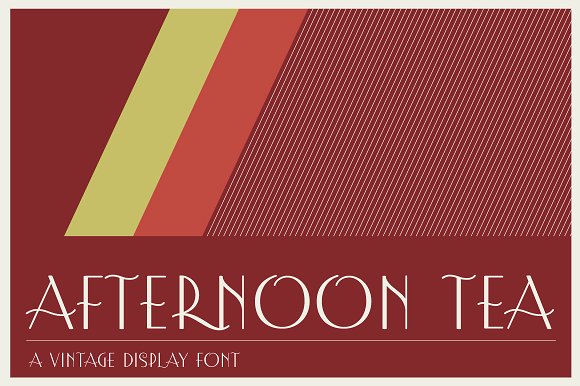
The Afternoon Tea Font: A Timeless Classic for Elegant Designs
Ah, the quest for the perfect font! I still remember the time I was working on a project, pouring over font libraries, and struggling to find the right fit. My client wanted a sophisticated, elegant look, and I was determined to deliver. That’s when I stumbled upon the Afternoon Tea font. Inspired by a lettering specimen from 1938, this font has been a game-changer for my designs. Let me tell you all about it!
I’ve had the pleasure of working with Afternoon Tea for a while now, and here’s my honest review:
• ✨ Elegant balance between thick and thin strokes, giving it a beautiful, organic feel
• ✅ Sturdy presence, making it perfect for titles and headings
• ⚠️ Limited to capital letters, which might be a consideration for some projects
• 🤔 Some users might find the font a bit quirky or old-fashioned, but that’s part of its charm!
One of the exciting features of Afternoon Tea is its OpenType capabilities. With access to a range of glyphs and stylistic alternates, you can add an extra layer of creativity to your designs. Experiment with different variations to find the perfect look for your project.
The Story Behind Afternoon Tea
Afternoon Tea was inspired by a lettering specimen featured in Letters and Lettering by Paul Carlyle and Guy Oring, published in 1938. The original lettering was created with an ink pen, which gives Afternoon Tea its distinctive, elegant feel. The font’s designers aimed to capture the essence of this classic lettering style, and the result is a timeless, sophisticated font perfect for a range of creative projects.
Is Afternoon Tea suitable for body text? While Afternoon Tea is a beautiful font, it’s best suited for titles, headings, and short paragraphs. Its elegant feel might not be suitable for longer blocks of text.